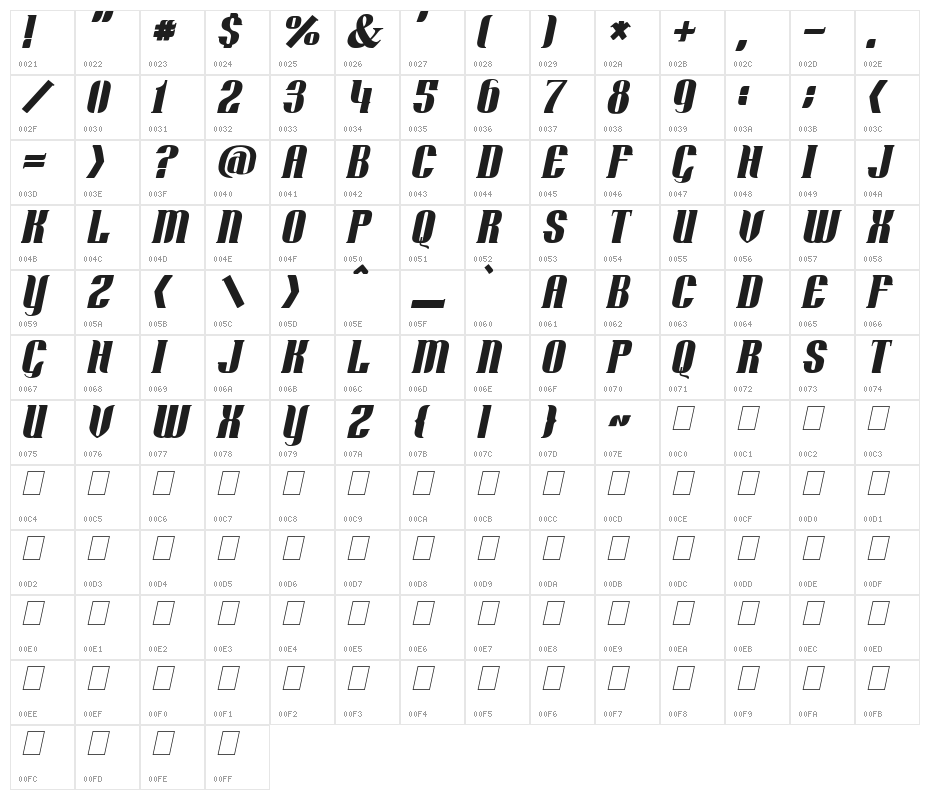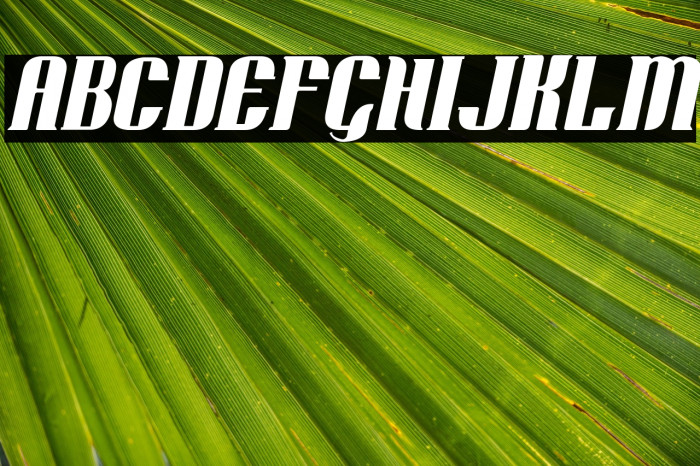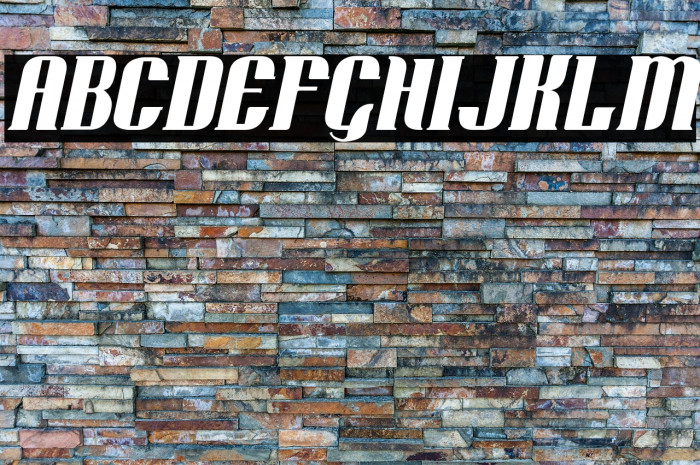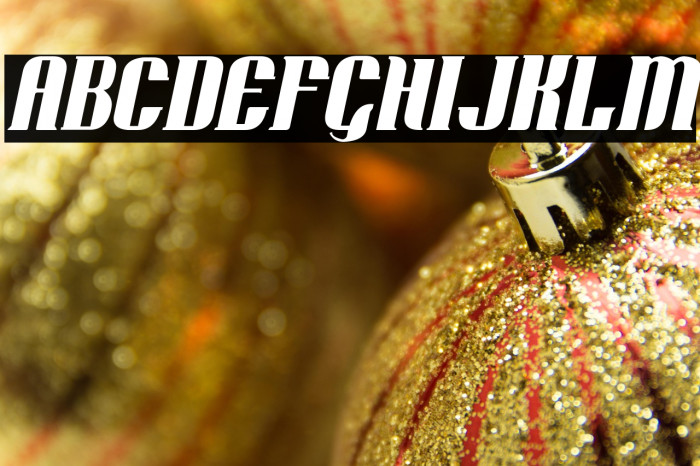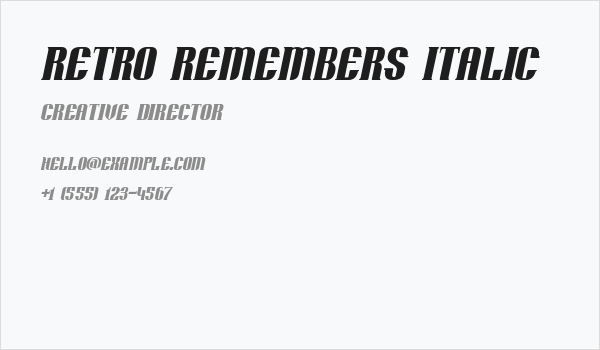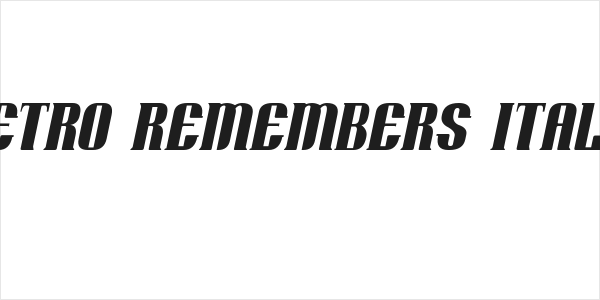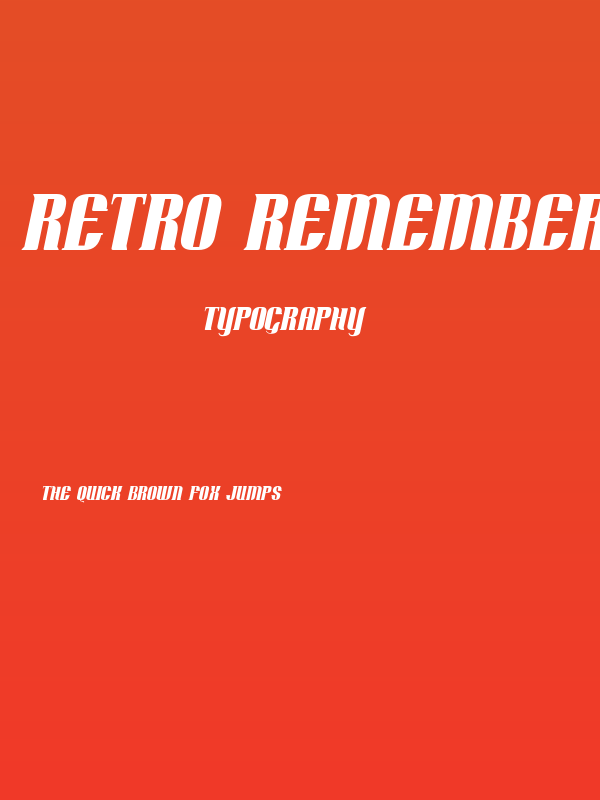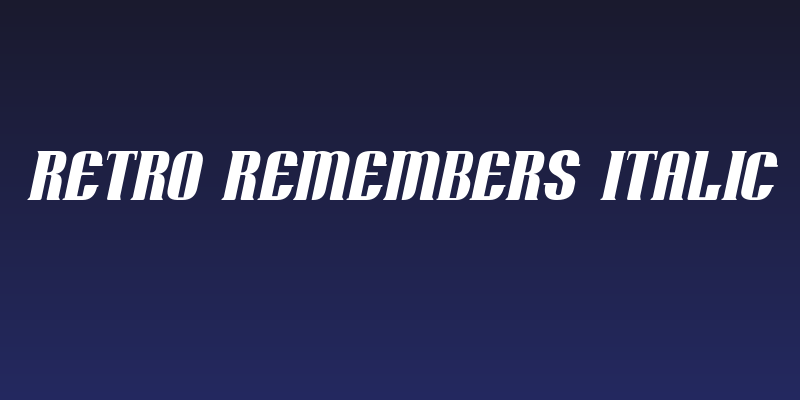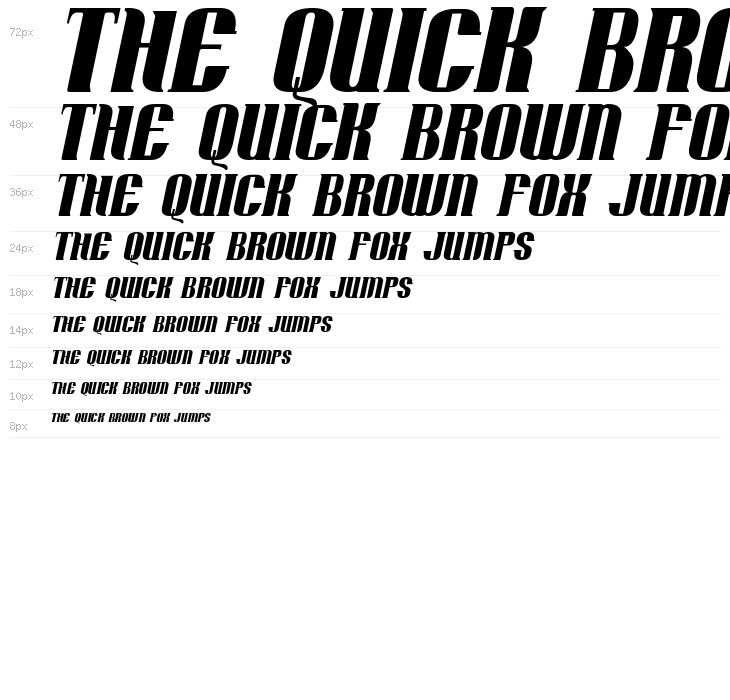
Retro Remembers Italic Font
Retro Remembers Italic Description
This font features a bold and dynamic style with a strong italic slant, giving it a sense of movement and energy. The characters are thick and robust, with a high contrast between the thick and thin strokes, which adds to its dramatic appearance. The serifs are pronounced and angular, contributing to a retro aesthetic that is both eye-catching and memorable. The overall design is reminiscent of vintage advertising and signage, making it ideal for projects that require a touch of nostalgia. The spacing between characters is tight, enhancing the compact and impactful look of the text.
| Overall Style | Retro |
| Proposed Projects | Ideal for vintage-themed posters, retro branding, and eye-catching headlines. |